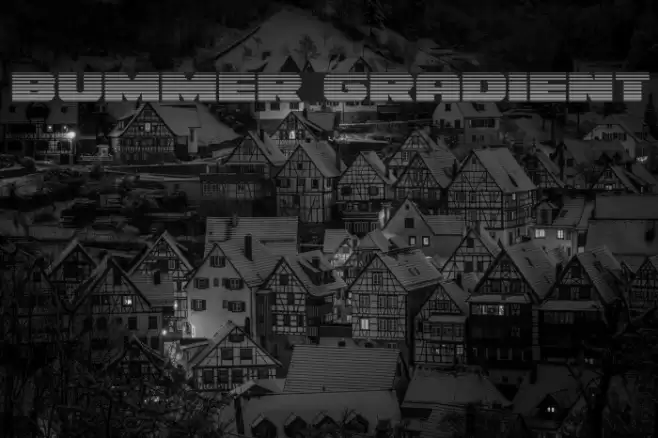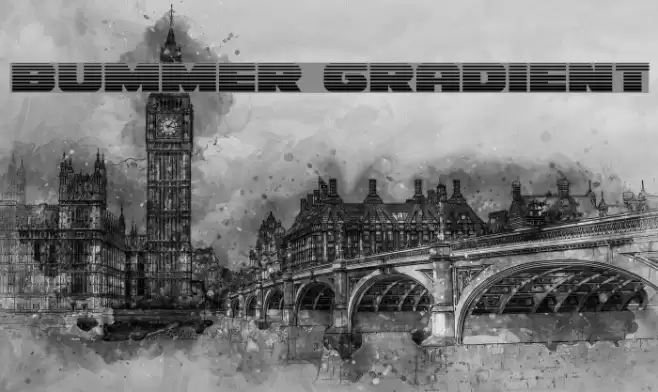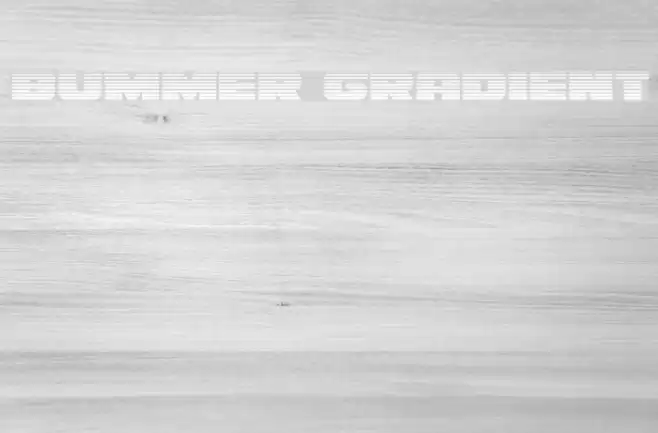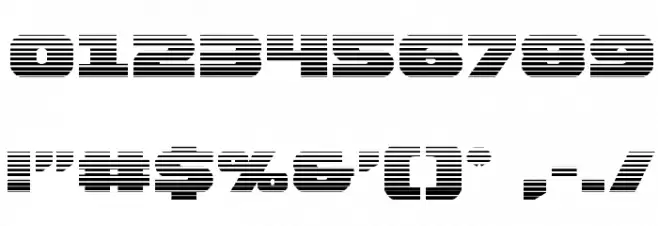
Bummer Gradient Font
Bummer Gradient Description
This font features a bold, modern design with a unique striped pattern that gives it a dynamic and futuristic appearance. The characters are constructed with horizontal lines that create a gradient effect, adding depth and visual interest. The uppercase letters are robust and commanding, while the lowercase letters maintain the same boldness, ensuring consistency across the typeface. Numbers and special characters are also designed with the same striped aesthetic, making them stand out. This font is perfect for projects that require a strong visual impact and a contemporary feel.
A bold, modern font with a unique striped gradient design from Uncategorized fonts.
- Proposed Projects: Ideal for branding, posters, headlines, and any project needing a futuristic and impactful look.
- Contrast: High